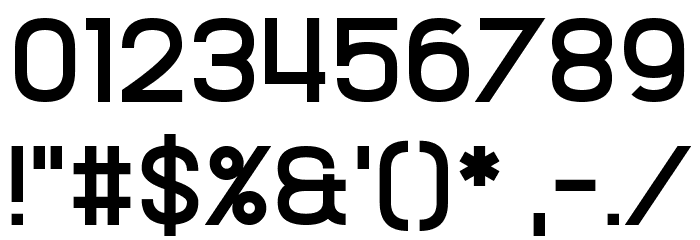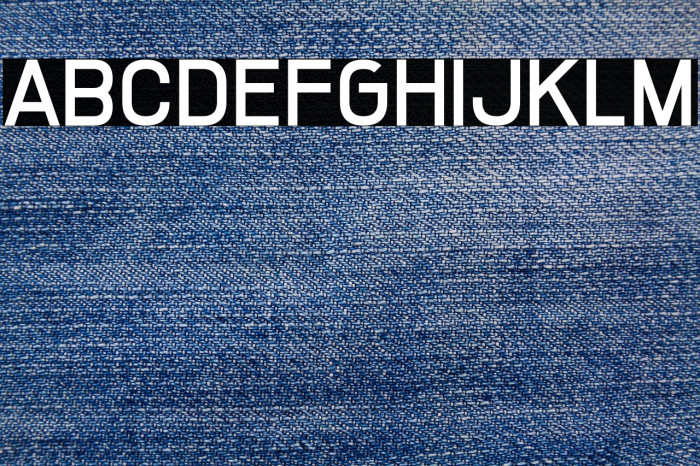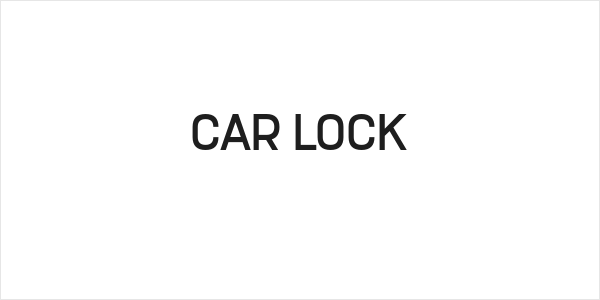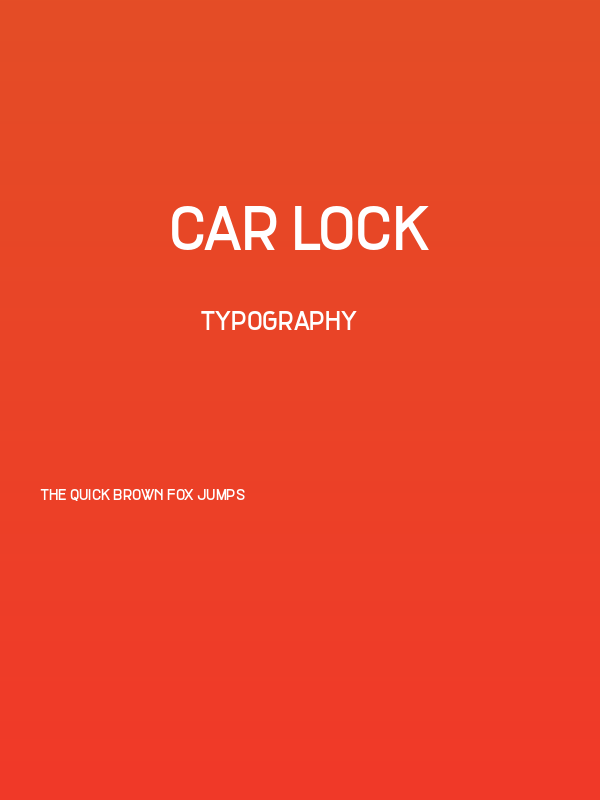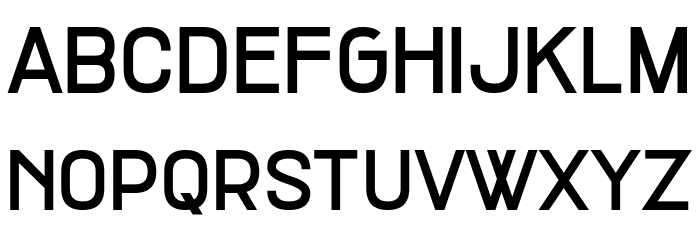
Car Lock Font
Car Lock Description
This font features a clean, modern sans-serif design with uniform stroke widths, giving it a sleek and contemporary appearance. The characters are well-proportioned, with a geometric influence evident in the rounded shapes of letters like 'O' and 'C'. The uppercase and lowercase letters maintain a consistent style, ensuring readability and versatility. Numbers are clear and distinct, making them suitable for various applications. The special characters are designed to match the overall aesthetic, providing a cohesive look across all glyphs. This font is ideal for projects requiring a modern and professional touch.